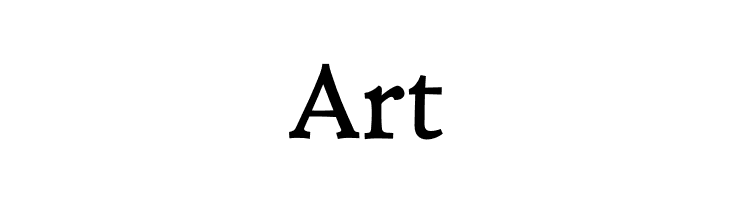
• Coelacanth Subcaption Heavy
A bold, serif font with angular serifs and a strong, distinctive style.
• Coelacanth Subcaption Light
A classic serif font with light weight and elegant, elongated characters.
• Coelacanth Subcaption Semibold
A classic serif font with medium contrast and a whimsical touch.
• Coelacanth Subheading
A classic serif font with elegant, sharp serifs and a traditional yet modern appeal.
• Coelacanth Subheading Bold
A bold serif font with a classic and slightly whimsical style.
• Coelacanth Subheading ExtraLight
An elegant and whimsical serif font with refined curves and sharp serifs.
• Coelacanth Subheading Heavy
A bold, high-contrast serif font with dramatic and elegant features.
• Coelacanth Subheading Light
A classic serif font with elegant, thin strokes and a sophisticated appearance.
• Coelacanth Subheading Semibold
A classic serif font with elegant curves and a semi-bold weight.